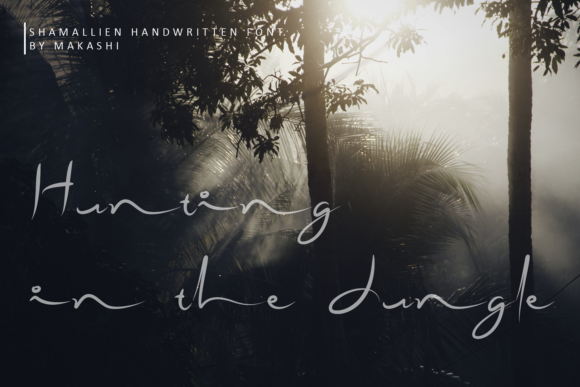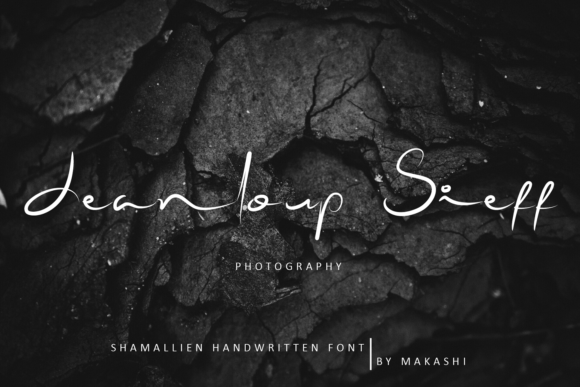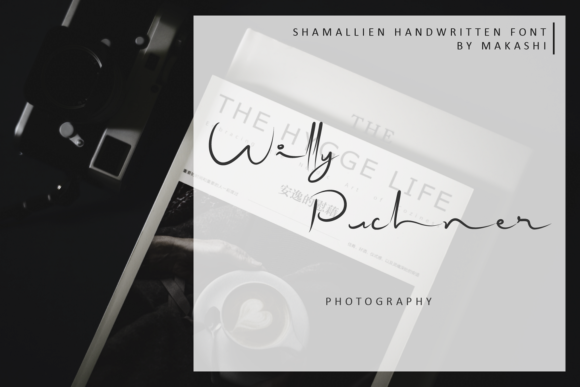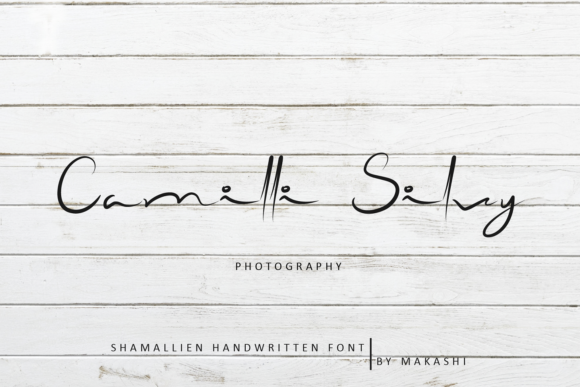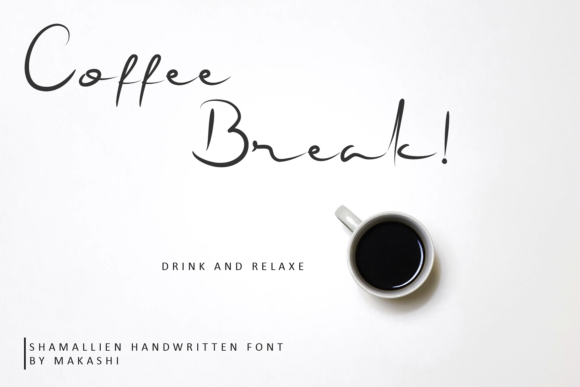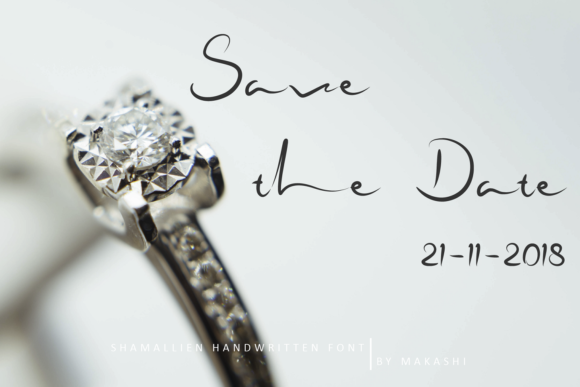
Introduction to Shamallien Font
The Shamallien is an elegant script font.
It has a beautiful handwritten style which makes it perfect for adding a natural feel to your designs .
Key Features of Shamallien Font
Why Choose Shamallien Font?